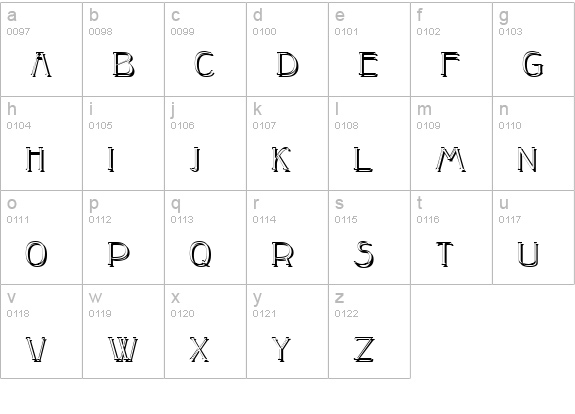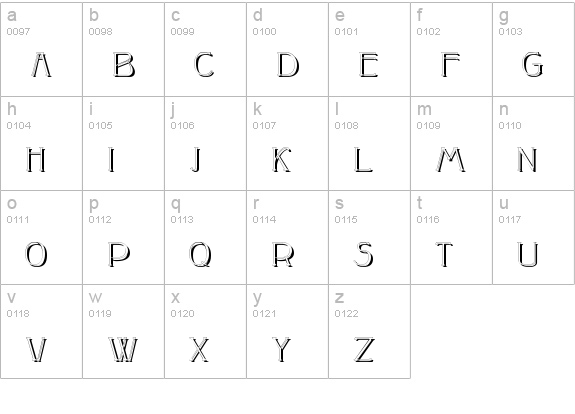
Peake-Shadow Font Details
Peake-Shadow font is a mesmerizing creation that will add a touch of mystery and intrigue to any design project. With its edgy and bold letterforms, this unique font captures the essence of shadowy depths, bringing a sense of depth and drama to your words. Designed with meticulous attention to detail, Peake-Shadow font features intricately crafted serifs and distinctive curves that create a captivating visual experience. Each letter seems to dance with its own shadow, evoking a sense of movement and dynamic energy. This font is not only visually stunning but also incredibly versatile. Whether you're designing a poster, a book cover, or a logo, Peake-Shadow font will bring a touch of elegance and sophistication to your work. Its dramatic and mysterious nature makes it perfect for projects that aim to captivate and intrigue the audience. One of the best aspects of Peake-Shadow font is that it is freely available to download at FontsMarket.com. Its creators understand the importance of accessibility and have made it accessible to everyone who wishes to add this stunning font to their collection. Downloading Peake-Shadow font from FontsMarket.com is a breeze, and once you have it, the possibilities are endless. Whether you're a professional designer or an amateur enthusiast, this font will undoubtedly elevate your designs to new heights. So, if you're looking for a font that combines elegance, mystery, and versatility, look no further than Peake-Shadow font. Download it for free at FontsMarket.com and let your creativity shine with this mesmerizing typographic gem.